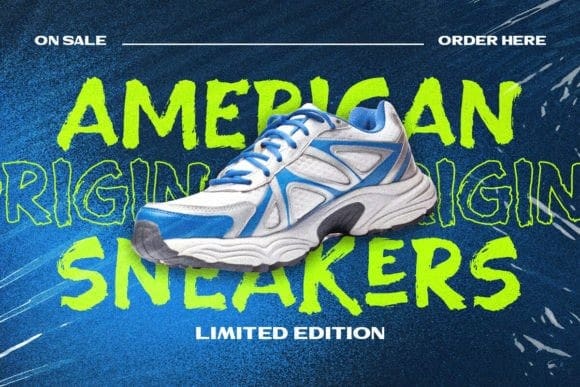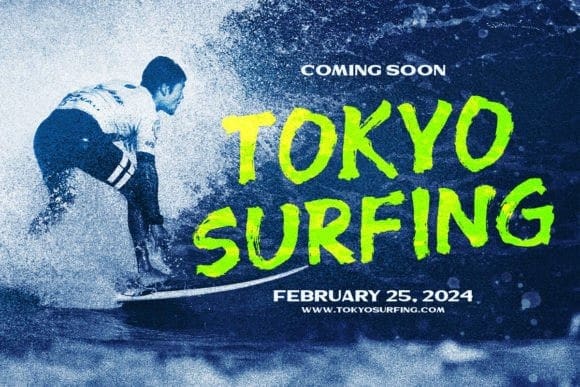
Blighted Brush Font
Blighted Brush Font is a hand drawn brush font. This font with organic freestyle textured which is purposely made for headline, display or logotype, magazines, books, greeting / wedding cards, packaging and signature which need a standout appearing.